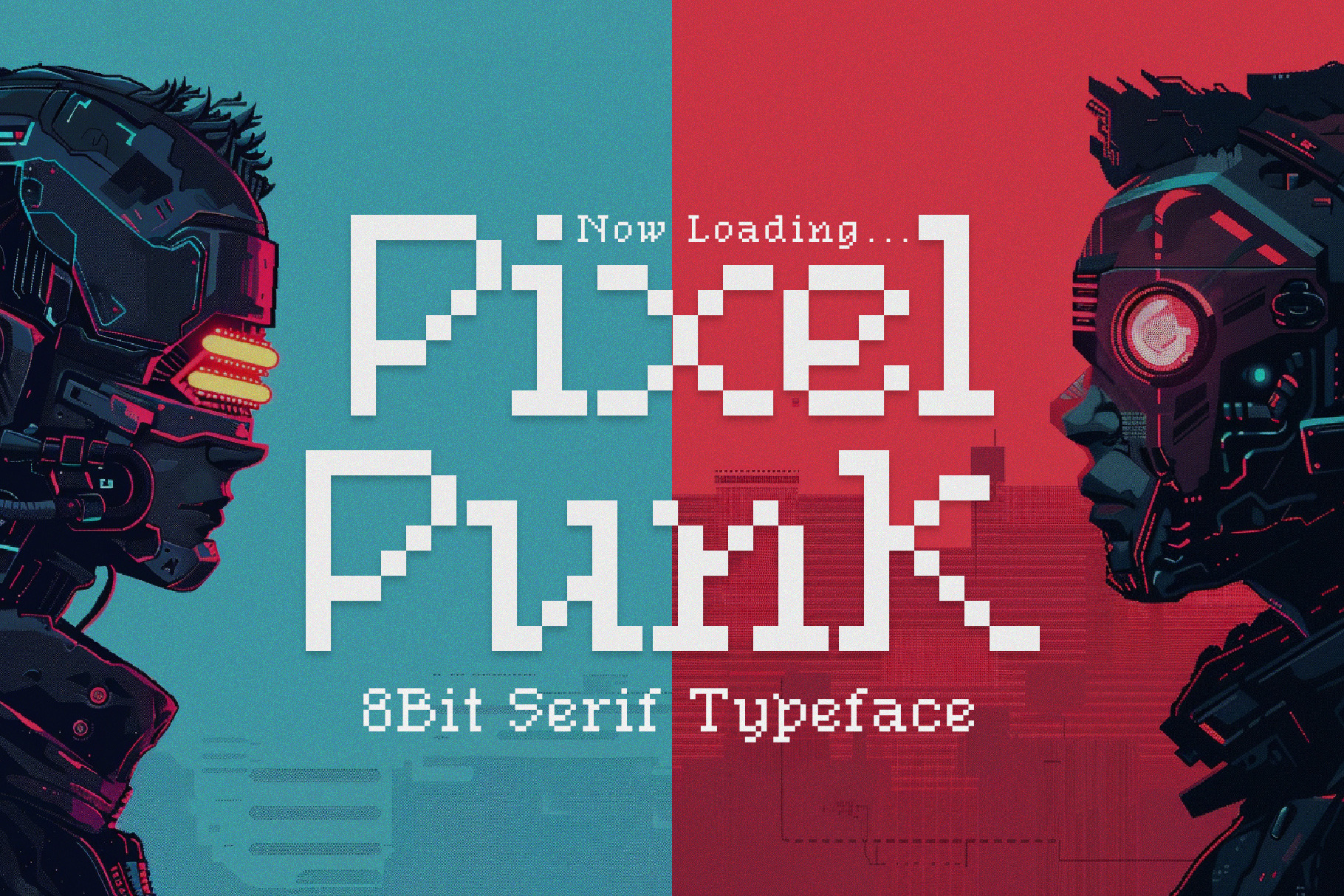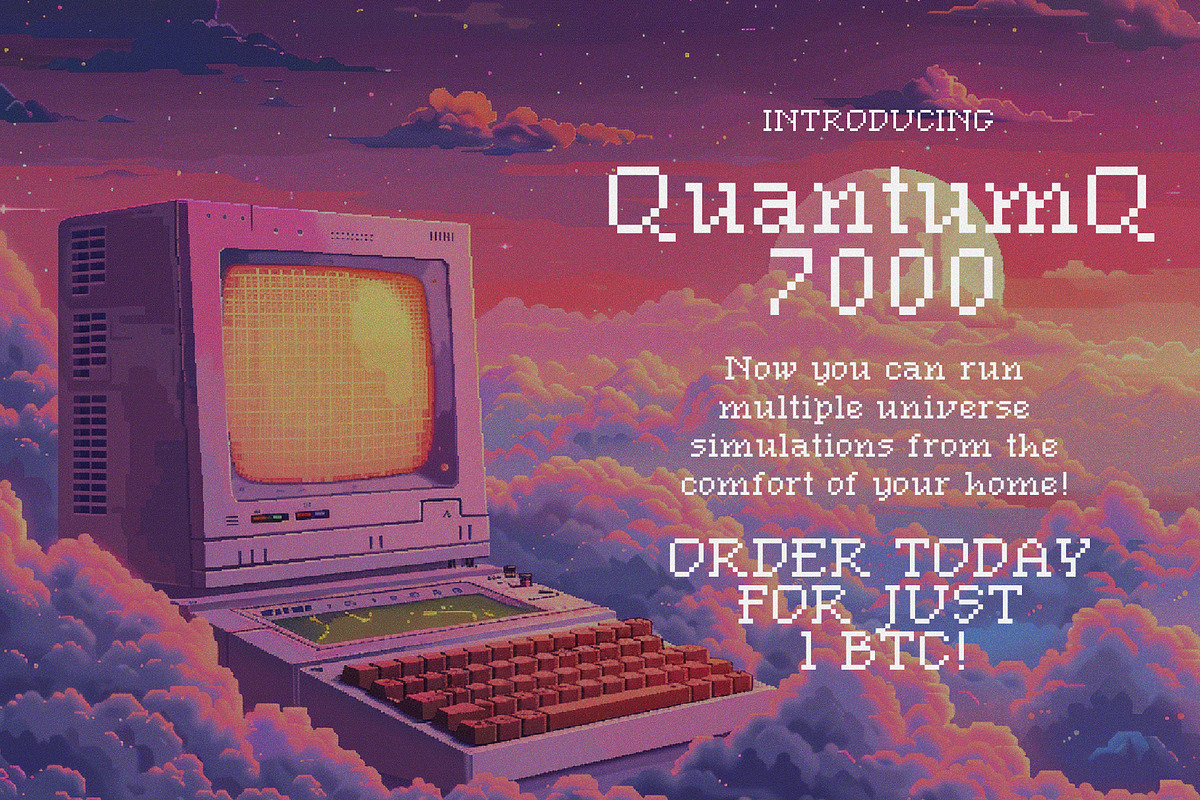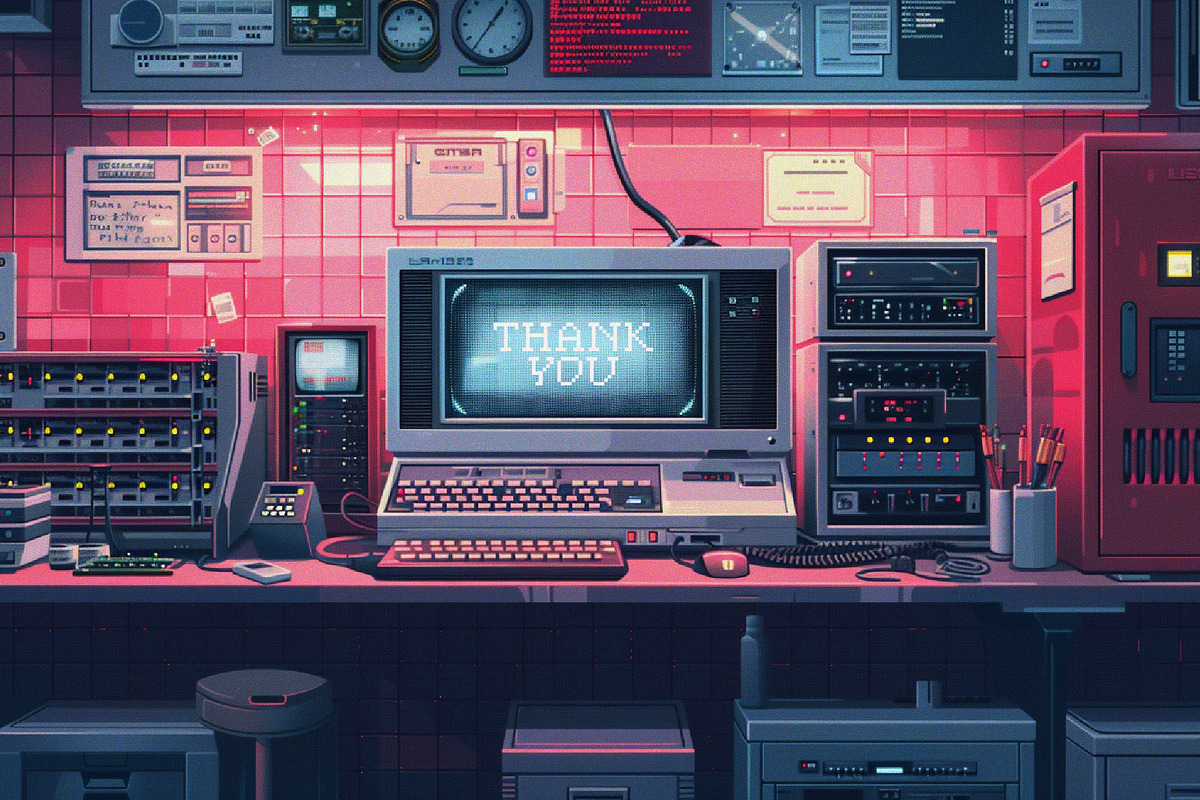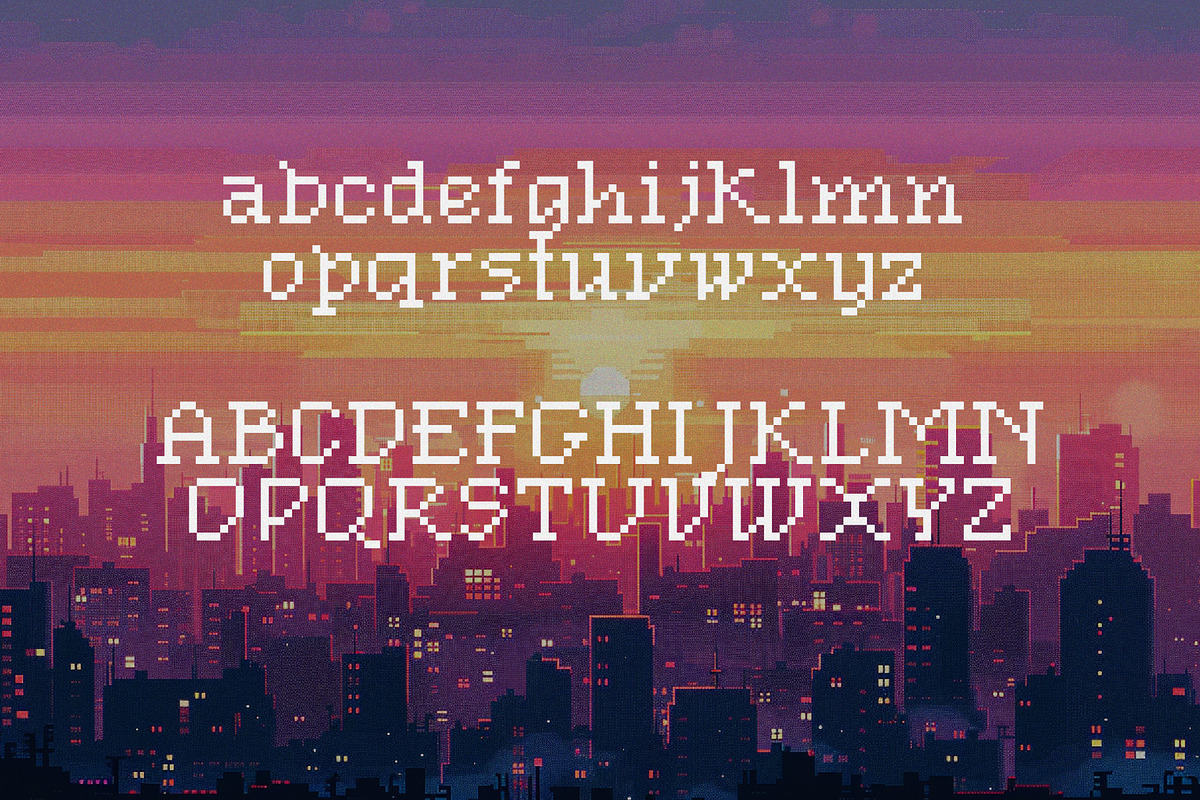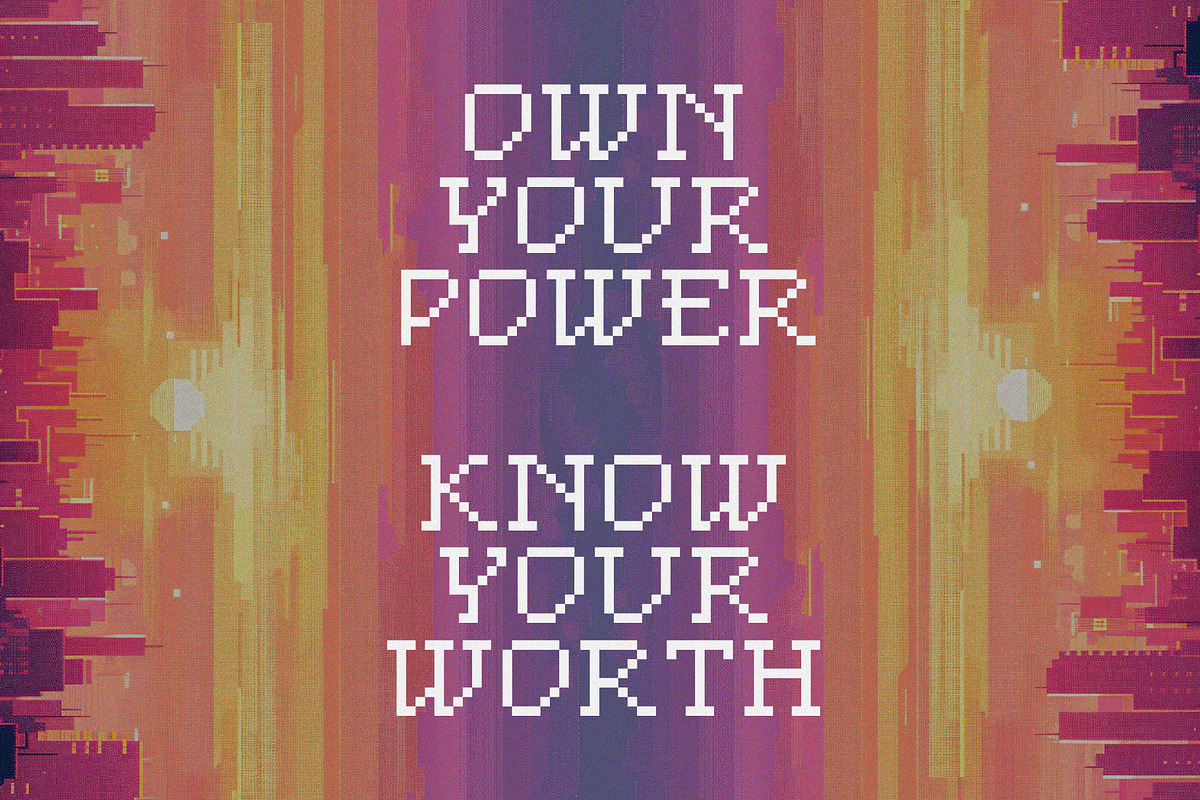
Pixel Punk - 8-Bit Serif Typeface
Introducing Pixel Punk, a serif 8-bit typeface that bridges the gap between vintage pixel art and bold, rebellious design. Channeling the raw energy of the punk rock era with the nostalgic charm of retro video games, Pixel Punk is a typeface that defies conventions and sets its own rules.
Each character is meticulously crafted to retain the sharp, angular edges of 8-bit graphics, while the serif details add a touch of classic elegance. Perfect for projects that demand a unique blend of old-school gaming aesthetics and edgy, modern flair, Pixel Punk is your go-to choice for making a statement in the digital age.
Whether you're designing for video games, posters, or digital art, this typeface will infuse your work with a distinctive, unforgettable vibe.